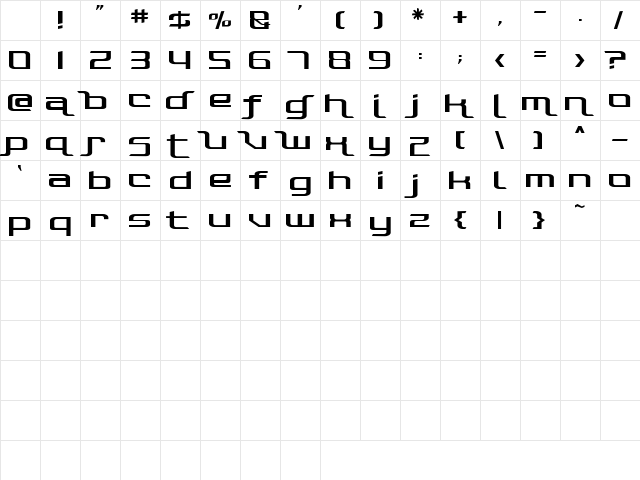
Complete Photonica Straight glyph index. Displaying only characters natively supported by Photonica Straight font.
Photonica is a composed and adaptable typeface that performs quietly and consistently across a wide range of design contexts.